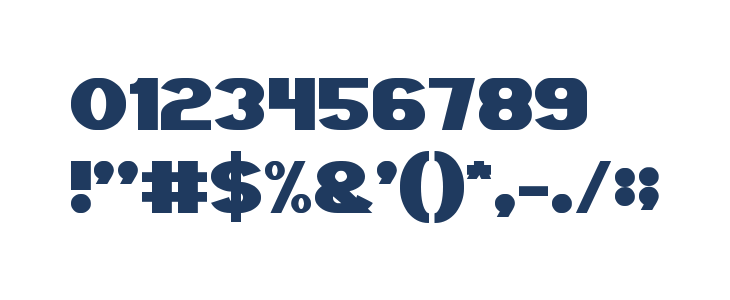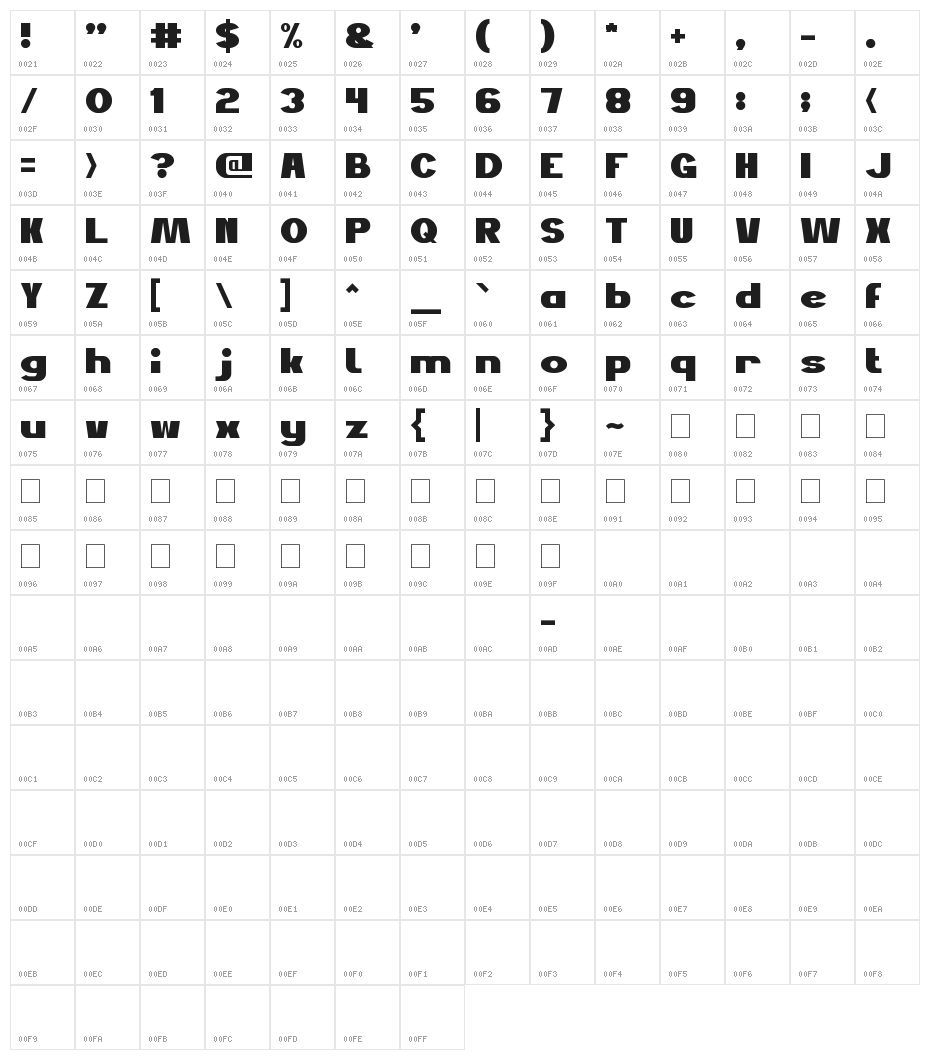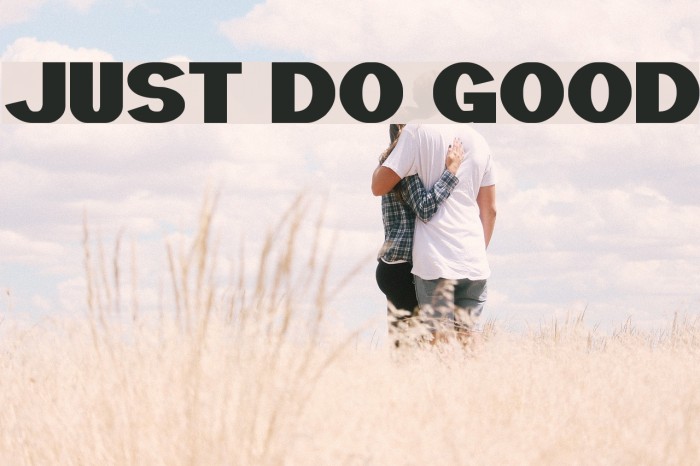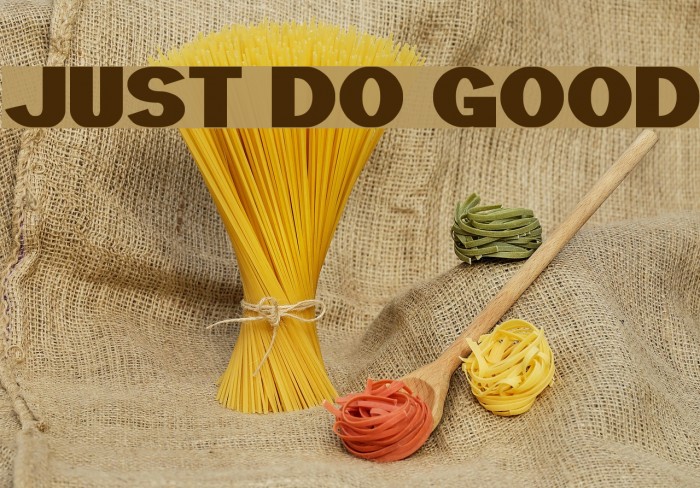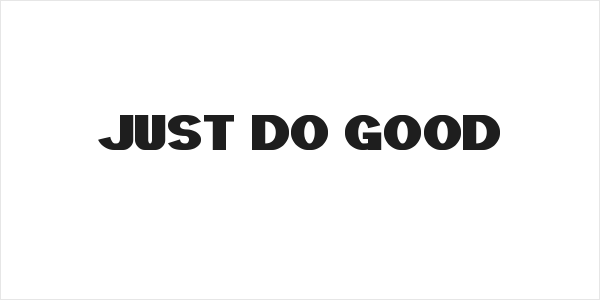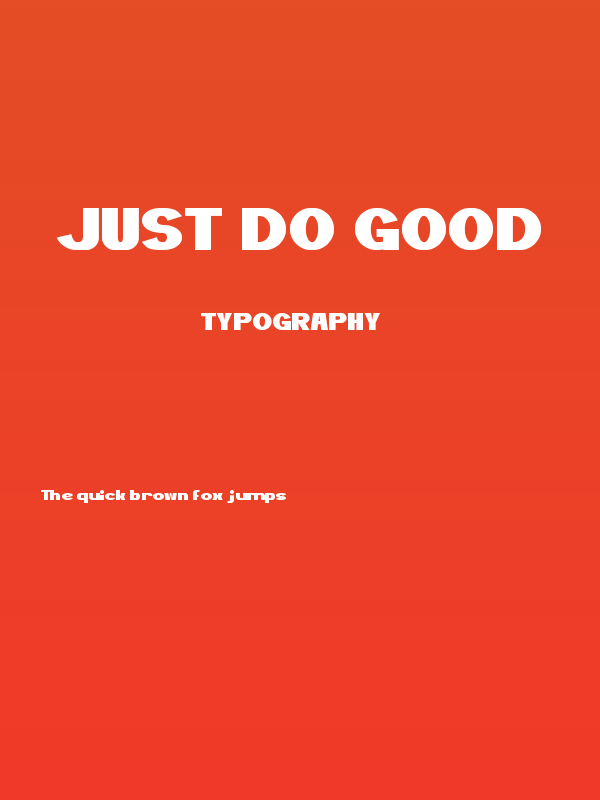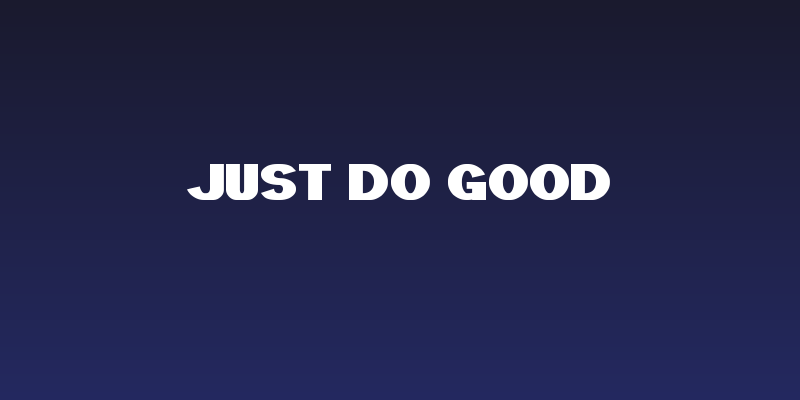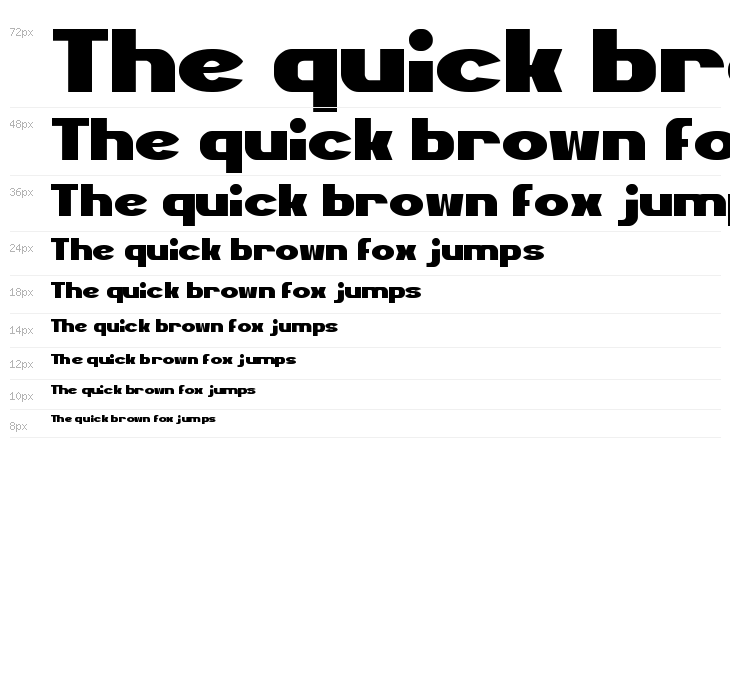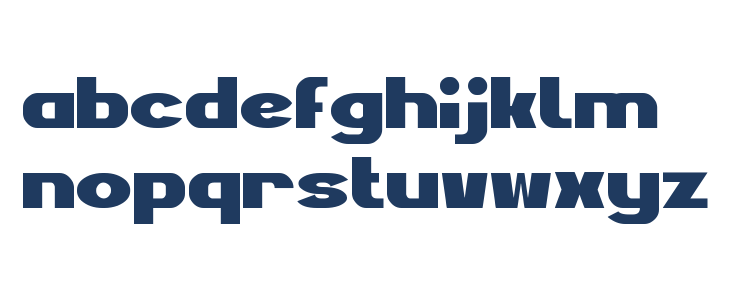
JUST DO GOOD Font
JUST DO GOOD Description
This font features a bold and impactful design, characterized by thick, uniform strokes that convey strength and confidence. The uppercase letters are blocky and robust, while the lowercase letters maintain a consistent weight, providing a harmonious balance. The numerals are equally bold, ensuring visibility and clarity. Special characters are designed with the same boldness, making them stand out. The overall appearance is modern and assertive, suitable for making strong statements in design projects.